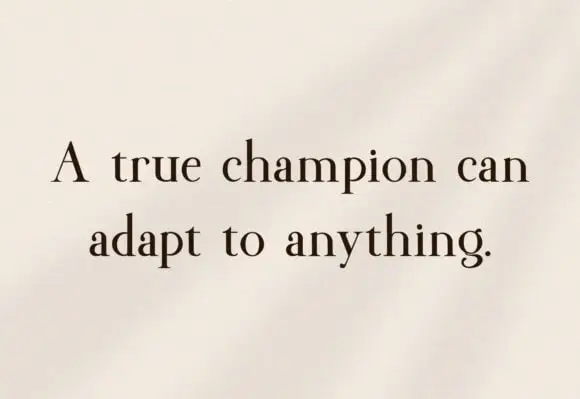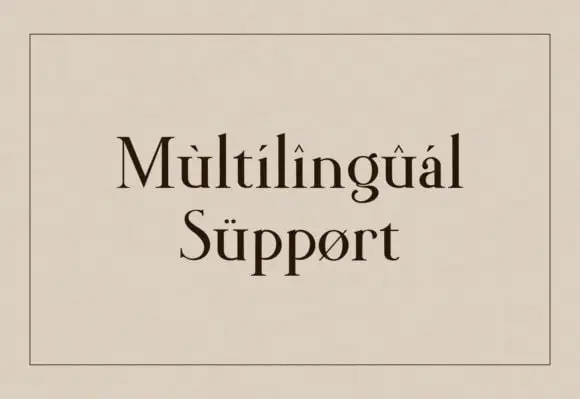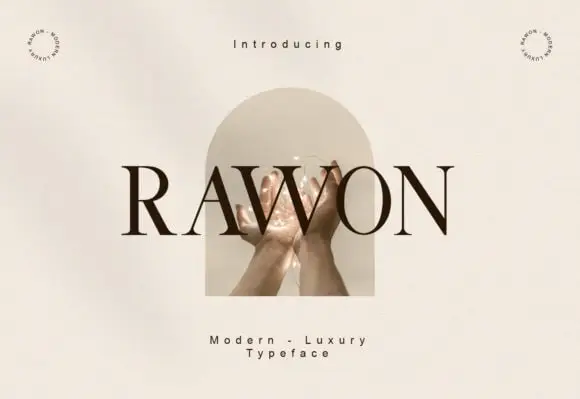
Galatamen-Rawon Font
The Galatamen-Rawon Font is a unique typeface designed to bring a modern touch to your projects. Featuring a combination of elegant curves and sharp edges, this font is perfect for a variety of applications, from branding to digital media.
This font is ideal for creating logos, posters, websites, and any print materials. Its modern aesthetic makes it suitable for both personal and professional projects.